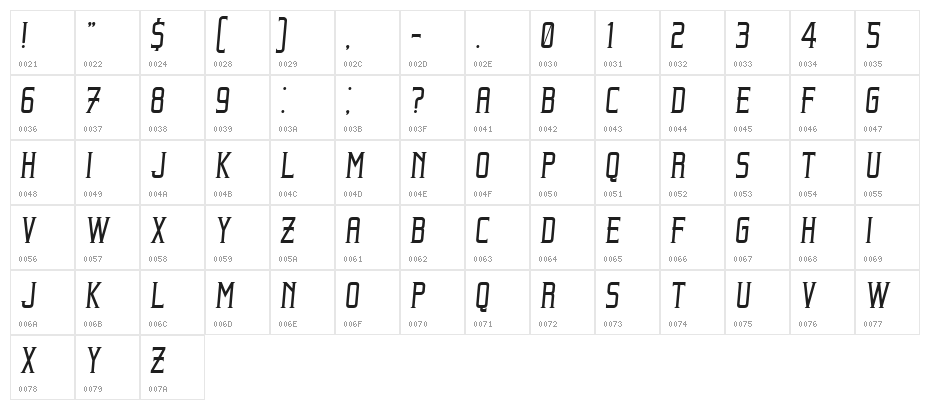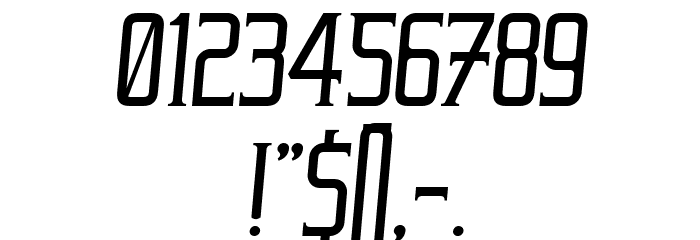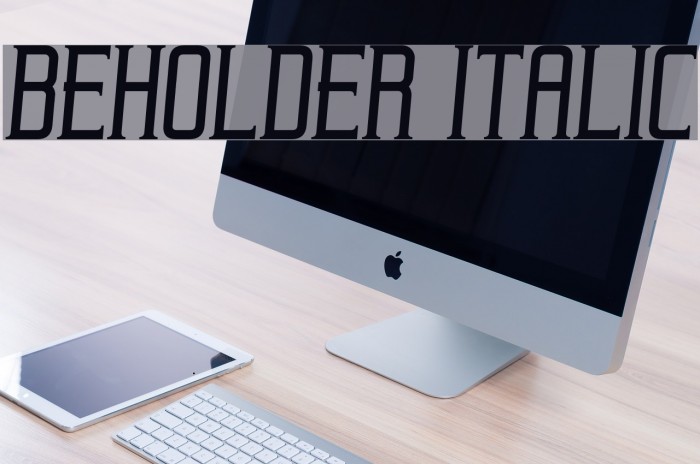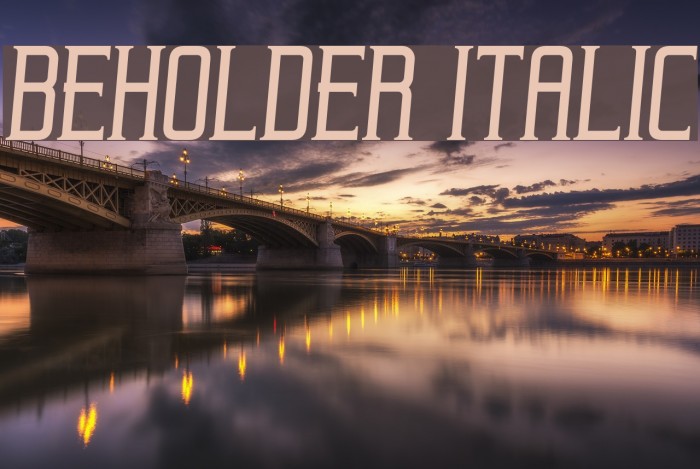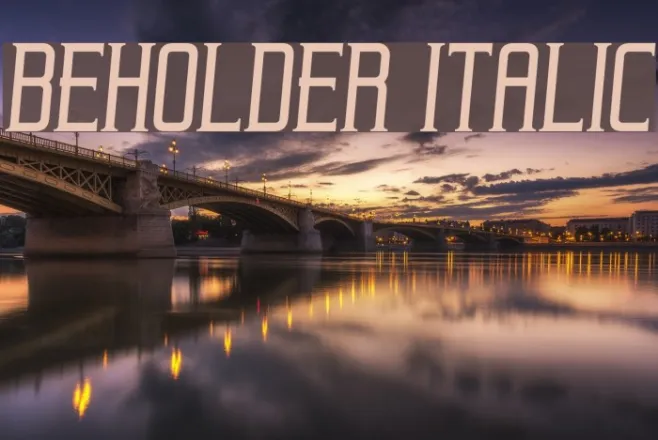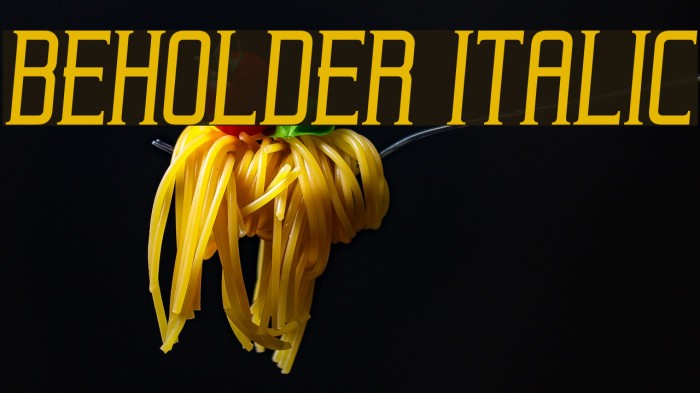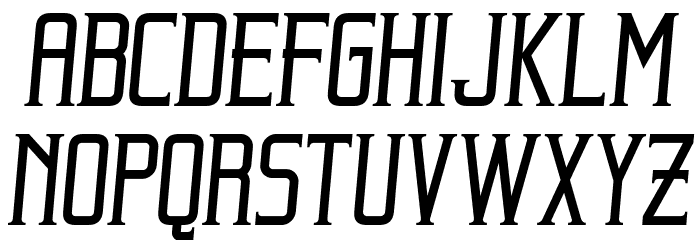
Beholder Italic Font
Beholder Italic Description
This font features a dynamic and modern italic style with a distinct slant, giving it a sense of motion and energy. The characters are elongated with sharp, angular edges, providing a sleek and futuristic appearance. The uppercase and lowercase letters maintain a consistent height, enhancing readability while retaining a unique flair. The numerals and special characters are designed to match the overall aesthetic, ensuring a cohesive look across all text. This font's bold and confident style makes it suitable for attention-grabbing designs.
| Width | Condensed |
| Overall Style | Modern, Dynamic |
| Proposed Projects | Ideal for sports branding, tech-related designs, dynamic posters, and modern advertising campaigns. |